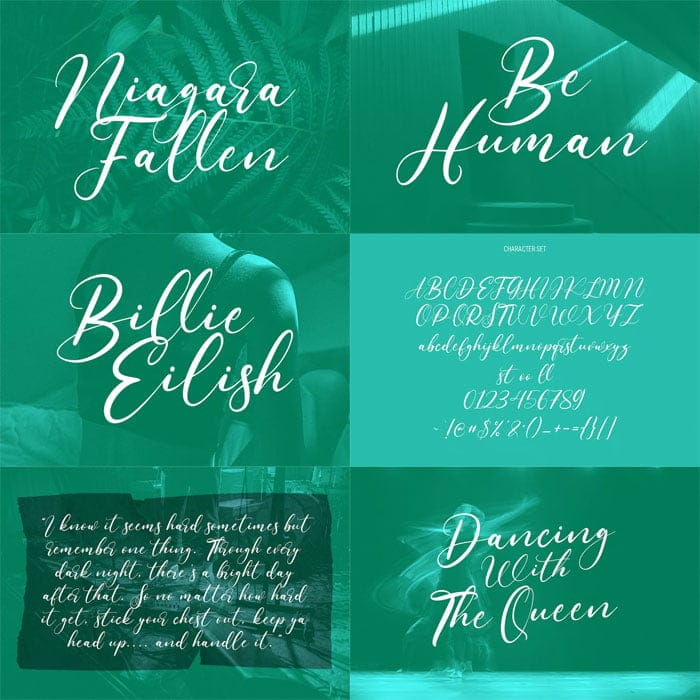
Rollcore's Script Font
Rollcores is a modern beauty signature script font. With a high-contrast line, a funny character with a few ligatures and stylistic alternatives. To enable you to do additional creative work. Rollcores fonts support multilingual languages ​​in more than 100 languages. This font is good for logo design, social media, movie title, book title, a short text, even a long text letter and good for your secondary text font with sans or serif. Do stunning work with the Rollcore font. You Can Also Download Starline Beautiful Script Fonts.
Rollcore's Script Font